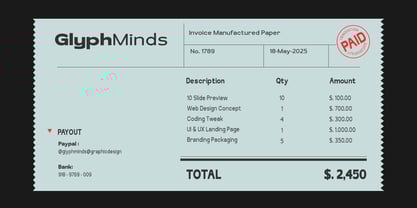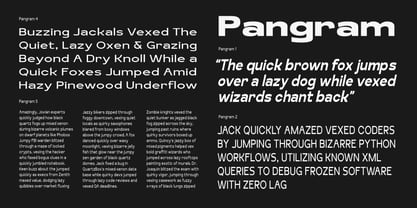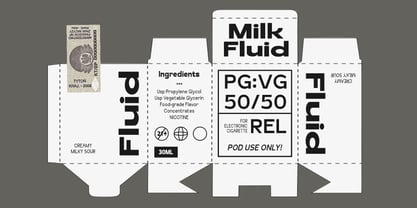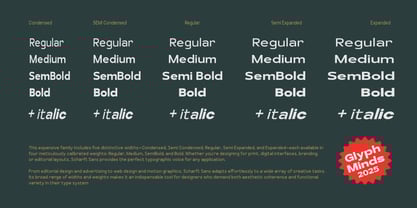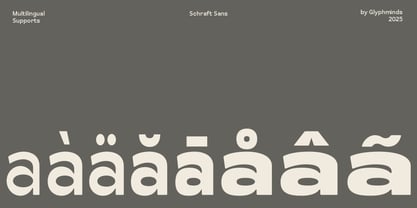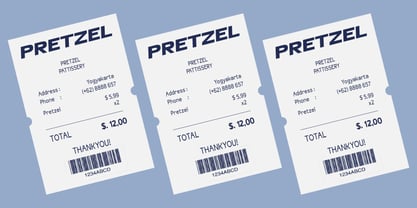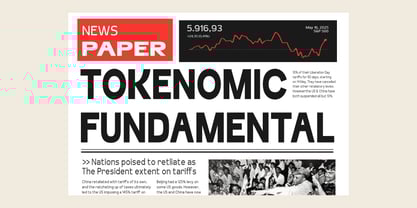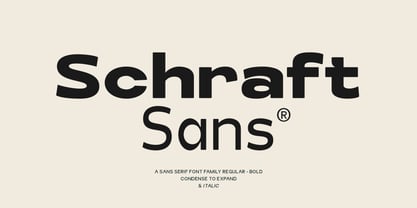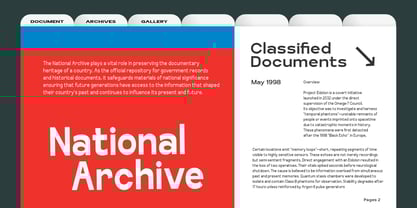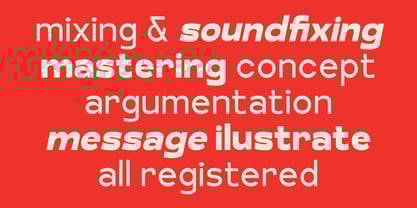
Schraft
von Glyphminds Studios
Die Schriftfamilie Schraft wurde von Baliya Ibnu Bi Malkan entworfen und von Glyphminds Studios veröffentlicht. Schraft enthält 40 Stile und Familienpaketoptionen.
Schraft Sans is a contemporary sans serif font family designed for clarity, flexibility, and modern appeal. With its clean geometric structure, it’s ideal for everything from bold headlines and logos to user interfaces and editorial layouts.
This family includes a full range of weights and widths — Regular to Bold, Condensed to Expanded, and Italic styles, giving you total control over your typography. Whether you’re crafting a sleek brand identity or designing a digital experience, Schraft Sans gives you the visual voice to stand out with style and precision.
Designer: Baliya Ibnu Bi Malkan